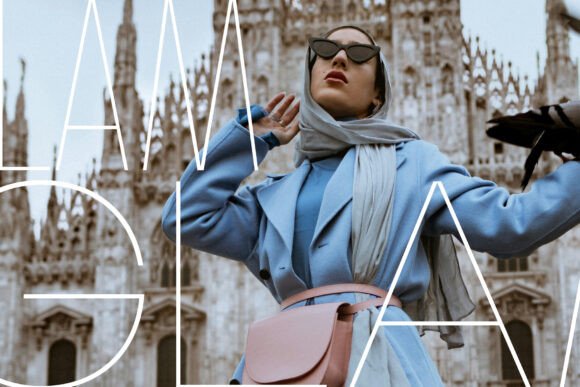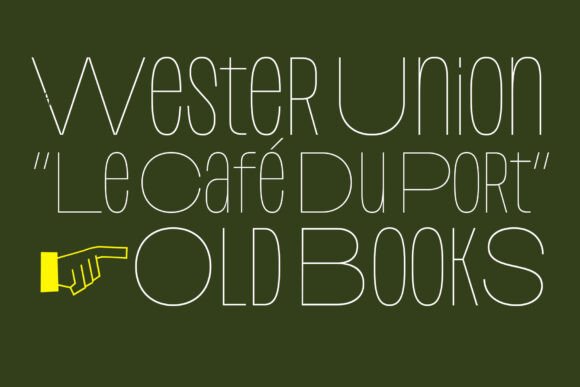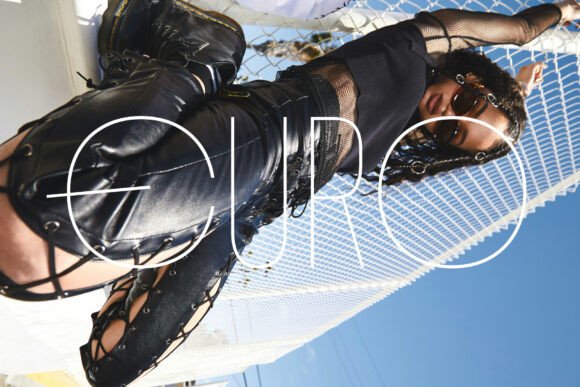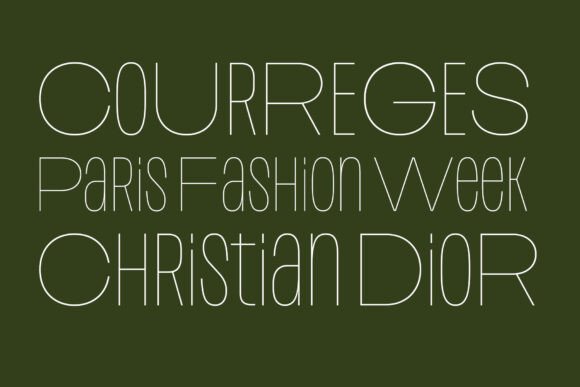
Introduction to Plex Beta Thin Font
Have you ever found yourself stuck in a design rut, searching for the perfect font to elevate your creative project from bland to grand? You know, that moment when everything clicks, and your design vision becomes crystal clear – that’s what happened when I stumbled upon the Plex Beta Thin Font.
This sleek, ultra-modern sans-serif font is a game-changer for designers seeking a sophisticated edge in their work. Its airy line weight and extended characters make it perfect for high-tech branding, digital interfaces, and clean editorial layouts. Whether you’re working on a futuristic project or simply want to add a touch of modernity to your design, the Plex Beta Thin Font is an invaluable resource.
Plex Beta Thin Font
- High-quality sans-serif font ideal for modern creative projects
- Unique, modern design with a transparent background, allowing for seamless integration
- Font size: 1,048 glyphs, providing a wide range of characters and symbols
- High-resolution design, suitable for both screen and print applications
- Perfect for use in logos, headings, and body text in a variety of creative projects
Honest Review: Plex Beta Thin Font
As a designer, I’m always on the lookout for high-quality design resources to elevate my creative projects. I recently had the chance to try out the Plex Beta Thin Font, and here’s my honest review.
What works well: ✨ The Plex Beta Thin Font is incredibly versatile and can be used for a wide range of design projects, from logos to typography-based designs. The font is also super easy to download and install, making it a great resource for designers of all levels.
- Transparent background: ✨ The font comes with a transparent background, which is perfect for designers who want to create a seamless look in their designs.
Limitations: ⚠️ While the Plex Beta Thin Font is a high-quality resource, it’s not without its limitations. The font is a bit limited in its style options, and may not be suitable for designers who are looking for a more extensive font library.
Overall, I’m impressed with the Plex Beta Thin Font. It’s a great addition to any designer’s toolkit, and can help take your creative projects to the next level. While it may not be perfect, it’s a high-quality resource that’s definitely worth checking out.
Plex Beta Thin Font
Tips for Getting the Most Out of Plex Beta Thin Font
For a high-quality design, use Plex Beta Thin Font in combination with other design resources, such as graphics and images. Experiment with different font sizes and styles to create visual interest. You can also use the font’s transparent background to create a seamless design.
Plex Beta Thin Font is perfect for creating a minimalist design for a creative project. It’s also great for use in logos, headings, and titles where a clean and modern look is desired. The font’s transparent background makes it ideal for use on images with a background texture.
Alternatives to Plex Beta Thin Font
1. Montserrat Thin
Monserrat Thin is a sleek and modern sans-serif font ideal for creative projects that require a touch of sophistication. It’s available for free download and features a transparent background, making it perfect for overlaying on images or videos. Montserrat Thin is a great choice for designers who want a high-quality alternative to Plex Beta Thin Font.
When to use: Montserrat Thin is suitable for corporate branding, advertising, and digital products. It’s a versatile font that can be used in a variety of contexts, from headings to body text.
Comparison to Plex Beta Thin Font: Montserrat Thin has a similar minimalist aesthetic to Plex Beta Thin Font, but with a more geometric feel. It’s a bit more ornate, making it a great choice for designers who want to add a touch of elegance to their project.
Is the Plex Beta Thin Font suitable for digital and print designs?
Yes, the Plex Beta Thin Font is designed to be versatile and can be used for both digital and print designs. Its high-quality design and transparent background make it an excellent choice for a wide range of creative projects, from website headers to business cards.